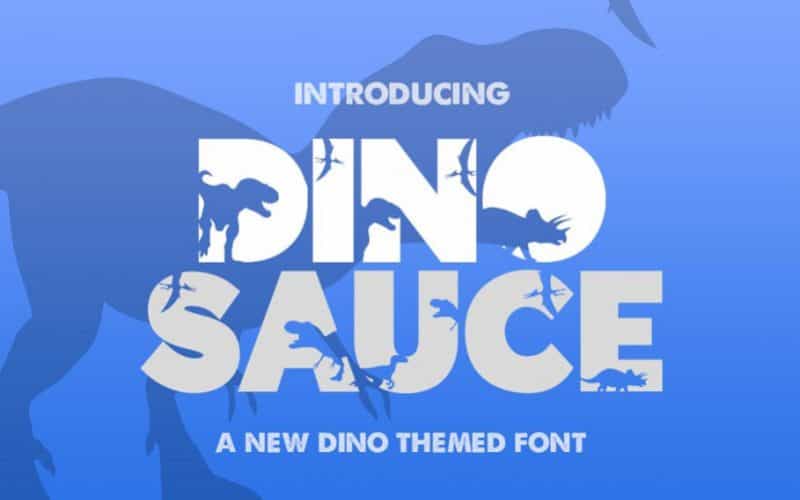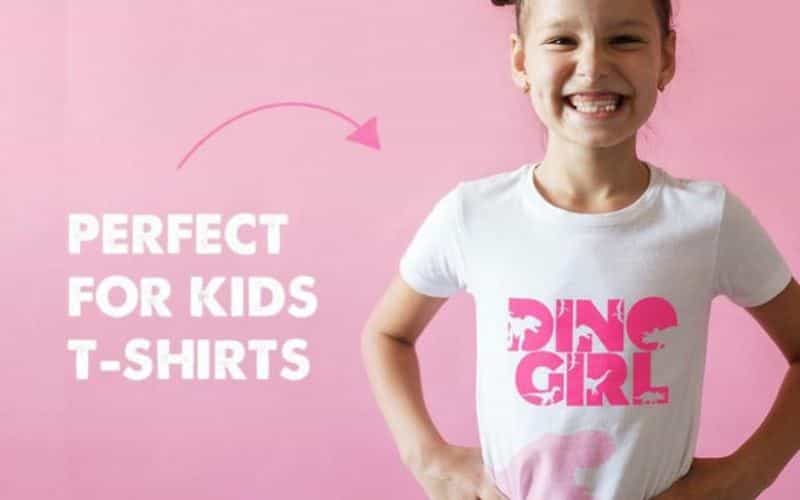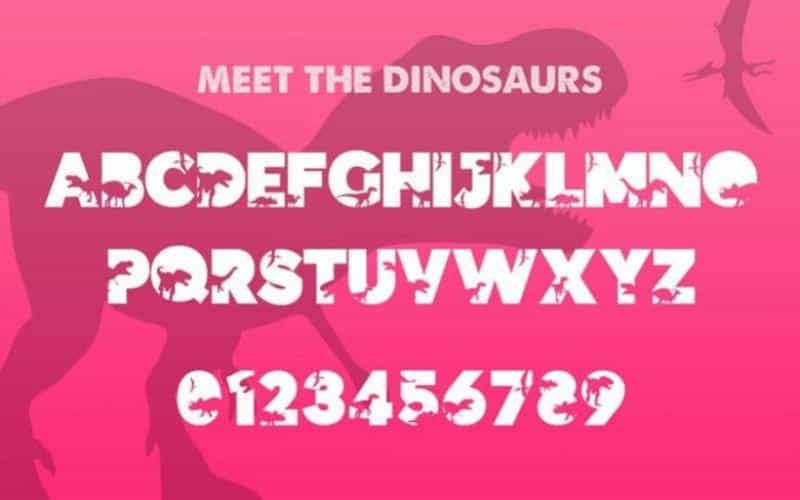
Dinosauce Free Font
Open the door, get on the floor, everybody walk the dinosaur! Ok, maybe not, but at least use this rawrsome sorry new font in your designs! Full of your fave prehistoric creatures and perfect for kids clothes and invites! Enjoy!